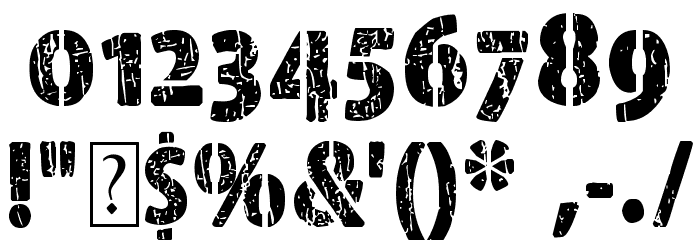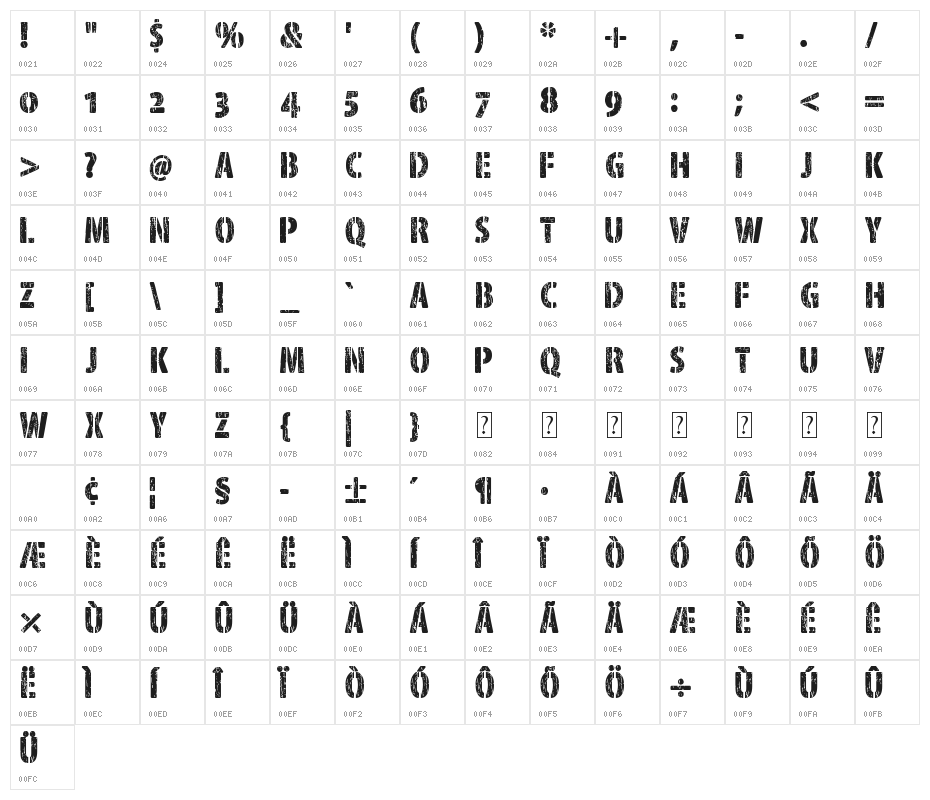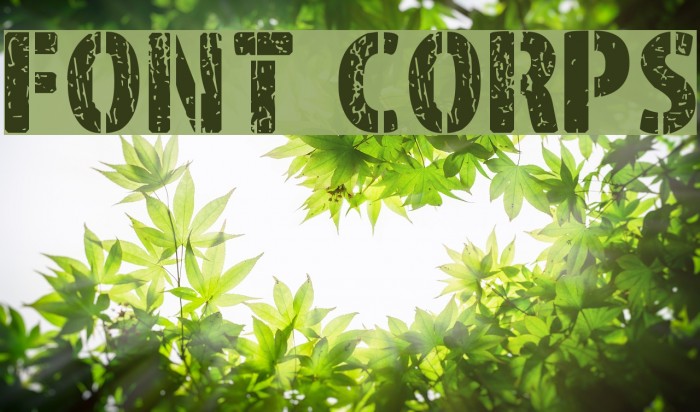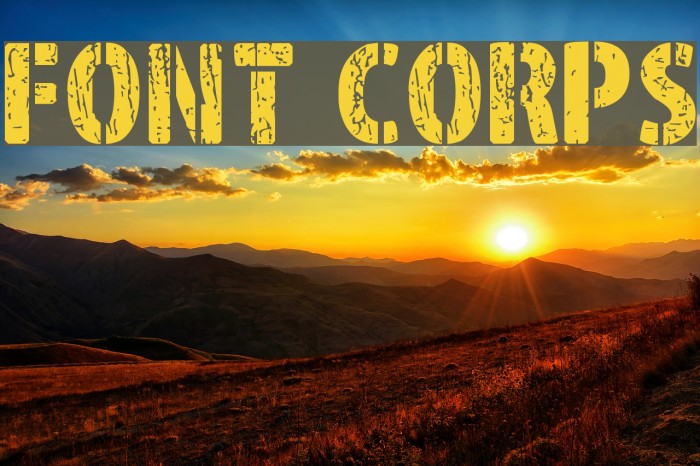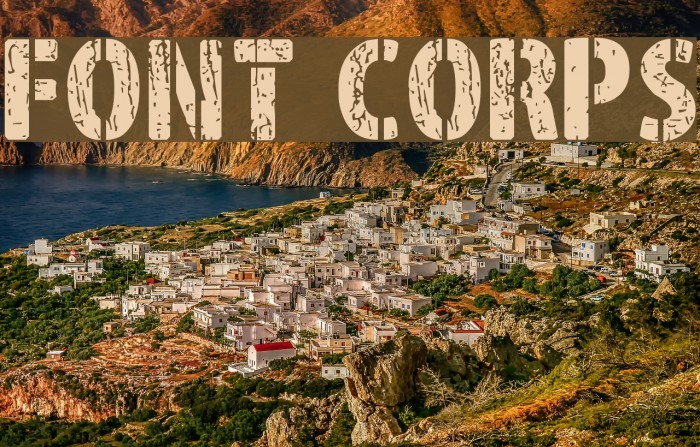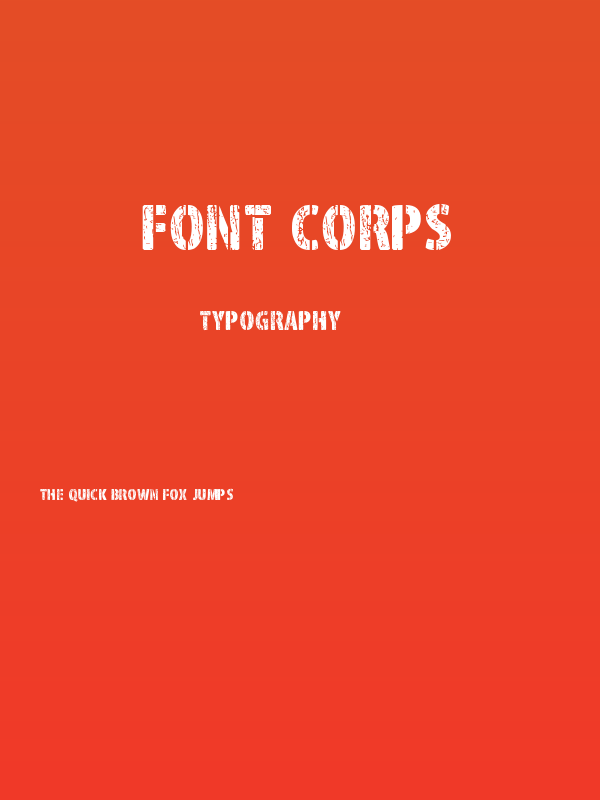
Font Corps Font
Font Corps Description
This font features a bold, distressed style with a grunge texture that gives it a rugged and worn appearance. The characters are uppercase and have a strong, impactful presence, making them ideal for attention-grabbing designs. The texture within each letter varies, adding a unique, handcrafted feel. The font maintains a consistent weight throughout, ensuring readability despite its decorative elements. It is well-suited for projects that require a bold statement or an edgy, urban aesthetic.
| Proposed Projects | Ideal for posters, album covers, branding for edgy products, or any design needing a bold, gritty look. |